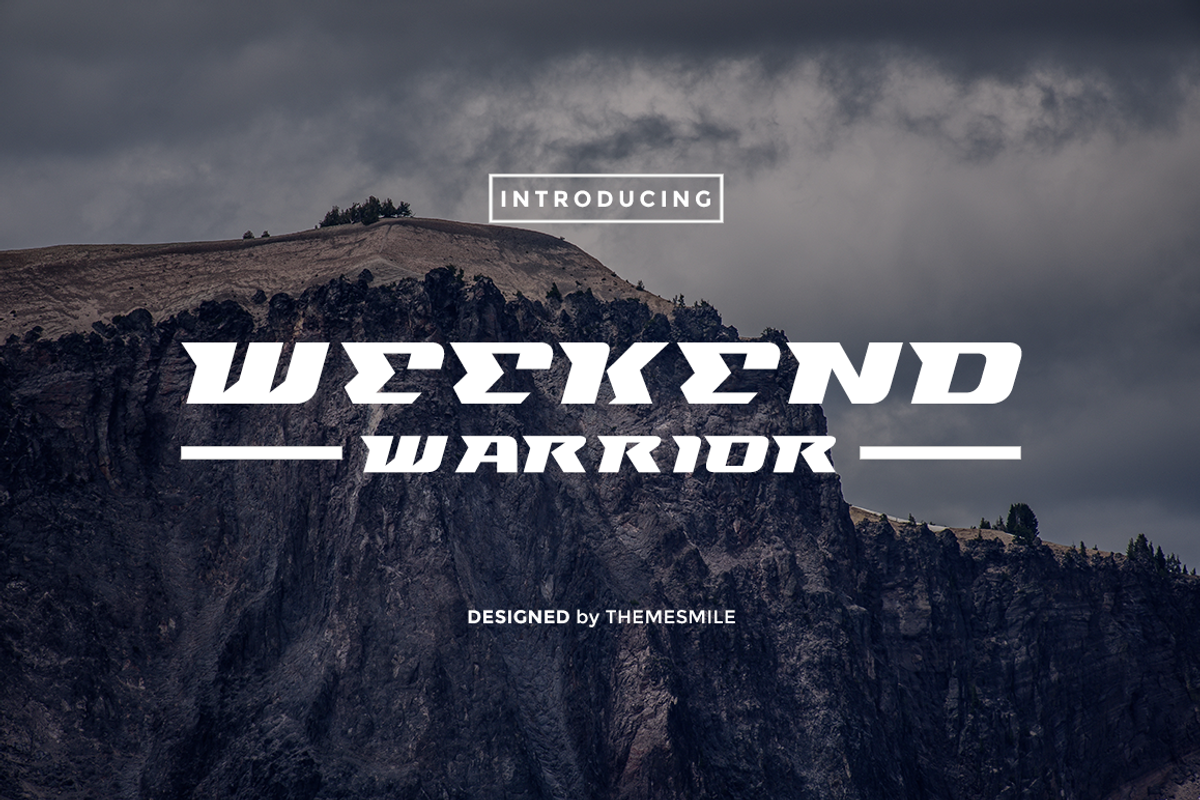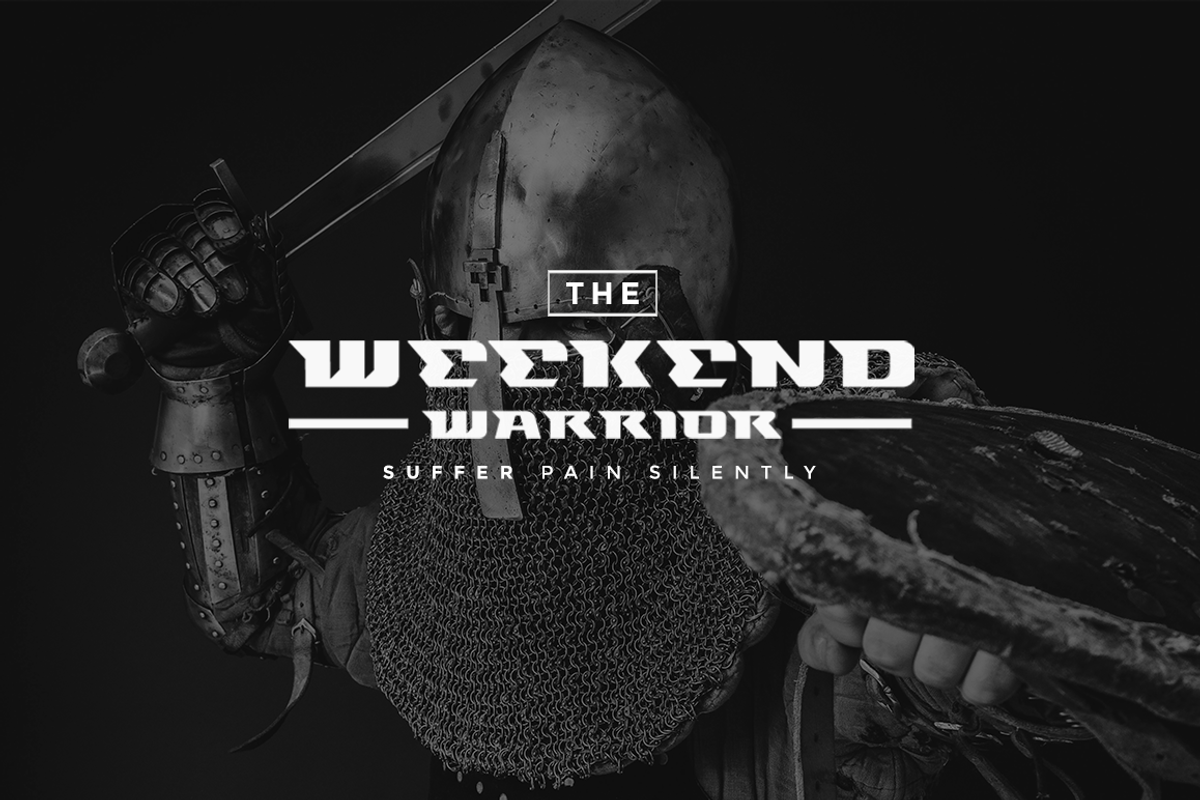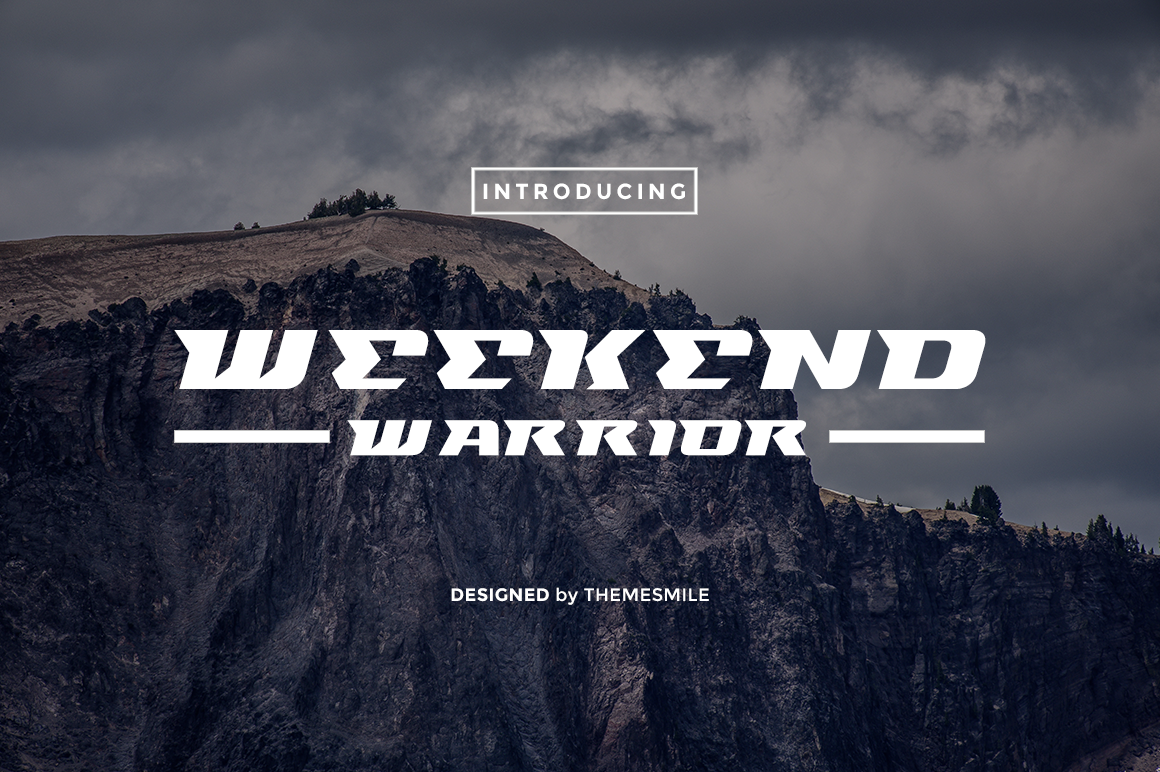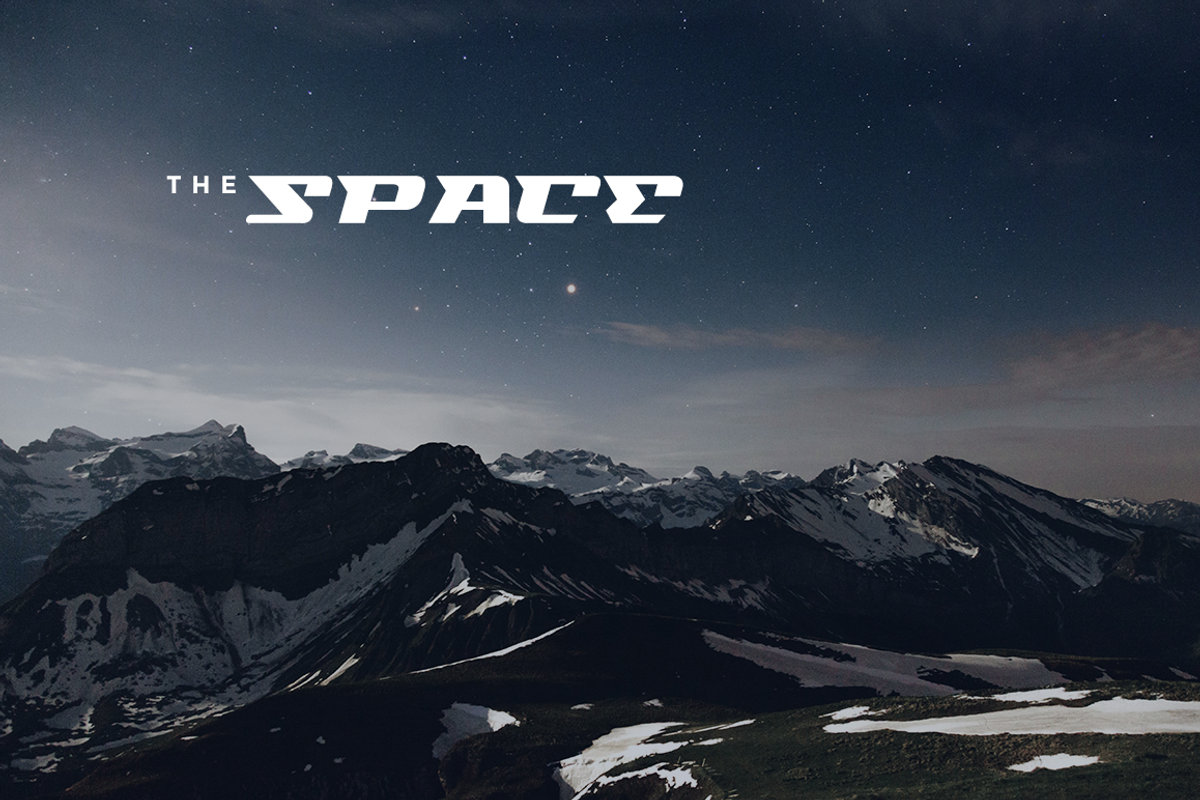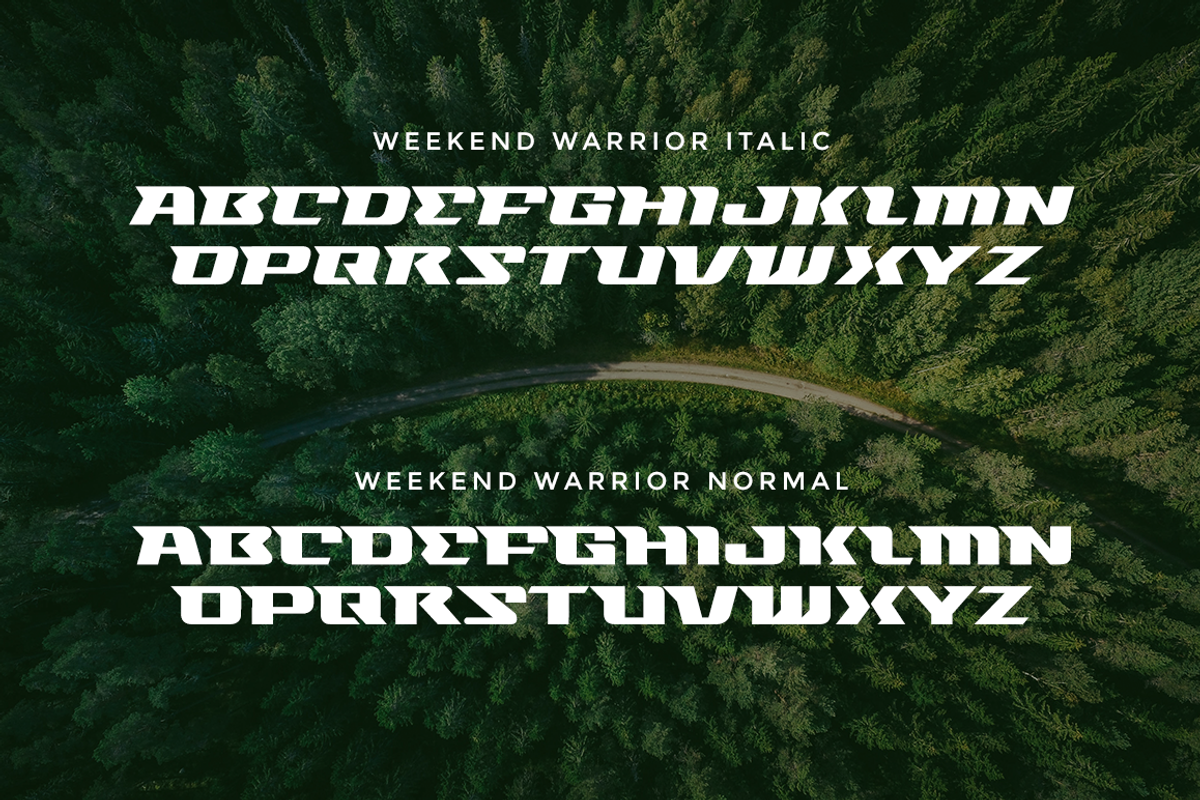
Weekend Warrior Sans Serif Font
Thanks for checking out Weekend Warrior! This is a font that was made to impress on something strong, sharp yet dynamic.
Ideal for; Logos, printed quotes, invitations, image overlays, greeting cards, product packaging, text headers, & whatever else your imagination holds!